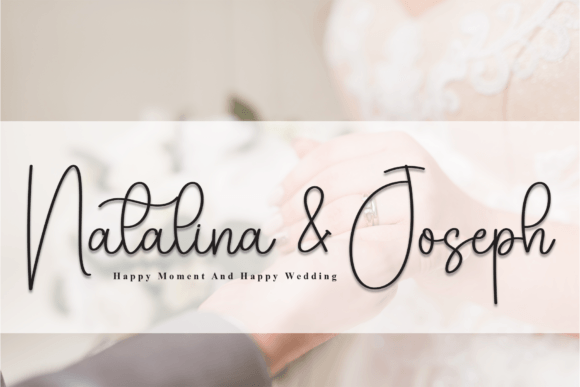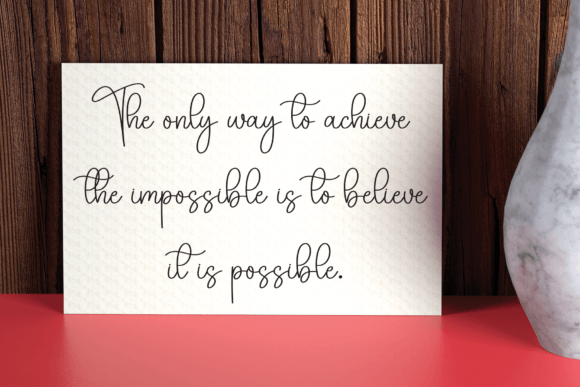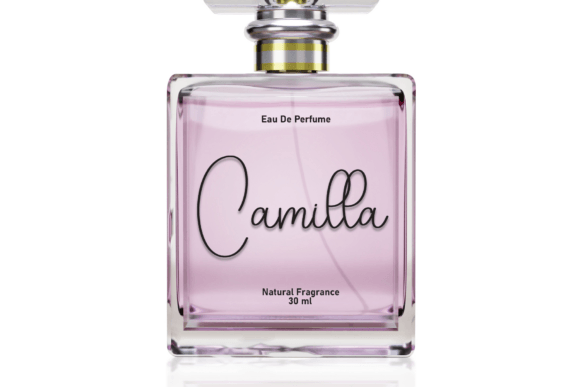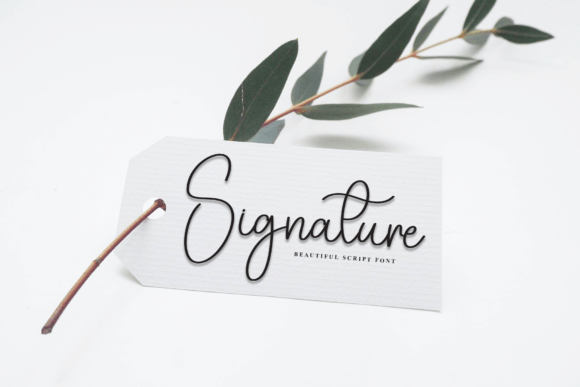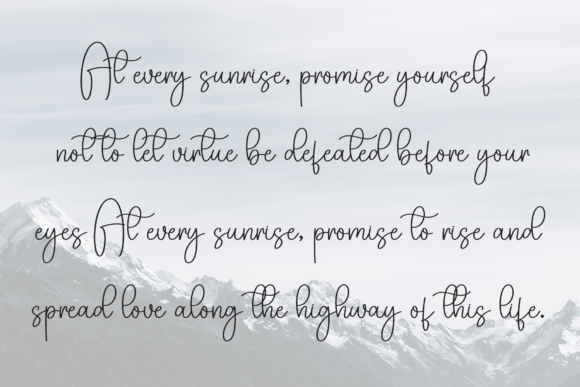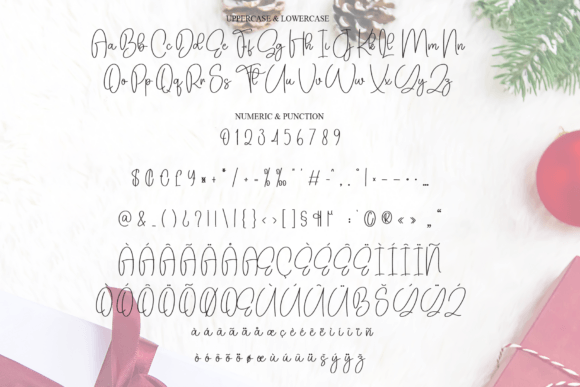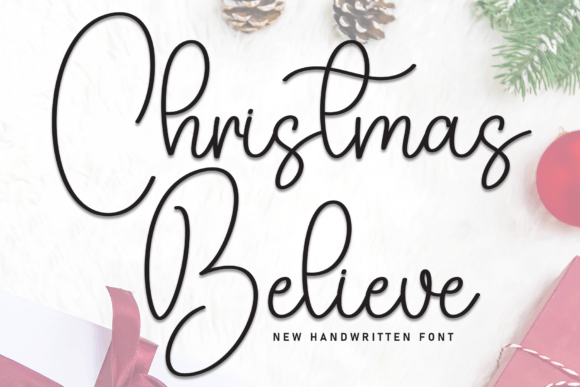
Introducing Christmas Believe Font: The Perfect Handwritten Script for Your Holiday Designs
Are you looking for a font that adds a personal and creative touch to your holiday designs? Look no further than Christmas Believe Font! This beautiful handwritten script font boasts a natural and elegant style, making it perfect for designers and crafters who want to create unique and eye-catching holiday projects.
What Makes Christmas Believe Font So Special?
Christmas Believe Font is a stunning example of a handwritten script font. Its natural and elegant style gives it a warm and inviting feel, making it perfect for holiday designs, wedding projects, and any other occasion where you want to add a touch of sophistication. The font’s handwriting-like quality makes it look like it was written by a skilled calligrapher, adding a level of elegance and refinement to your designs.
Key Features of Christmas Believe Font
- Handwritten script font: Christmas Believe Font is a true handwritten script font, with each letter and word carefully crafted to mimic the natural flow of handwriting.
- Natural and elegant style: The font’s natural and elegant style makes it perfect for a wide range of design projects, from holiday cards and invitations to wedding stationery and more.
- Perfect for personal and creative projects: Whether you’re a designer, crafter, or DIY enthusiast, Christmas Believe Font is the perfect choice for adding a personal and creative touch to your projects.
How to Use Christmas Believe Font in Your Designs
Christmas Believe Font is incredibly versatile and can be used in a wide range of design projects. Here are a few ideas to get you started:
- Holiday cards and invitations: Use Christmas Believe Font to create beautiful and elegant holiday cards and invitations that will make your loved ones feel special.
- Wedding stationery: Add a touch of romance and sophistication to your wedding stationery with Christmas Believe Font.
- DIY crafts: Use Christmas Believe Font to add a personal touch to your DIY crafts, such as handmade ornaments, gift tags, and more.
- Digital designs: Use Christmas Believe Font in your digital designs, such as social media graphics, blog posts, and more.
Tips for Getting the Most Out of Christmas Believe Font
Here are a few tips for getting the most out of Christmas Believe Font:
- Experiment with different colors and textures: Add depth and interest to your designs by experimenting with different colors and textures.
- Pair with other fonts: Pair Christmas Believe Font with other fonts to create a unique and eye-catching design.
- Use in combination with images: Use Christmas Believe Font in combination with images to create a beautiful and cohesive design.